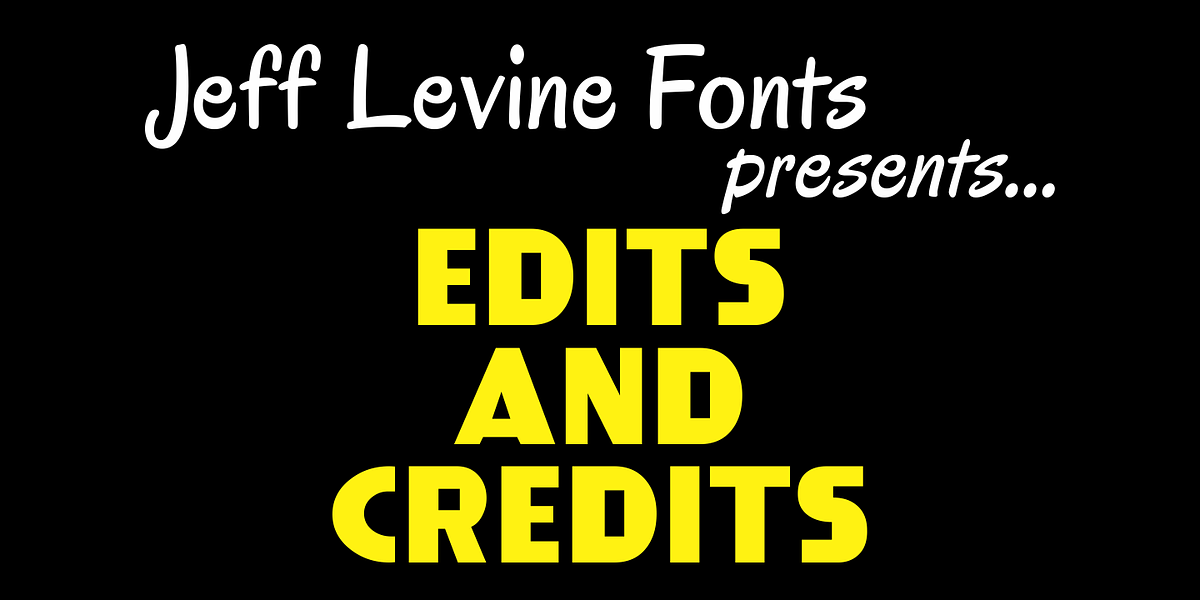
Edits and Credits JNL
Edits and Credits JNL is a cheerful sans serif typeface modeled from ceramic letters in a Mittens movie titling set from the late 40's or early 1950's. In the original kit, letters would be lined up accordingly against a contrasting background and photographed for home or professional movie and slide titles.